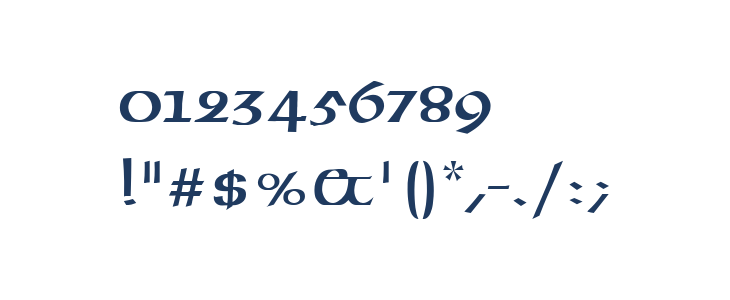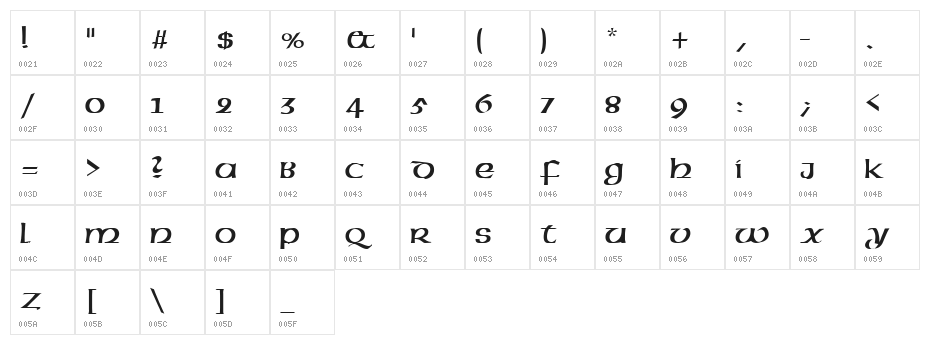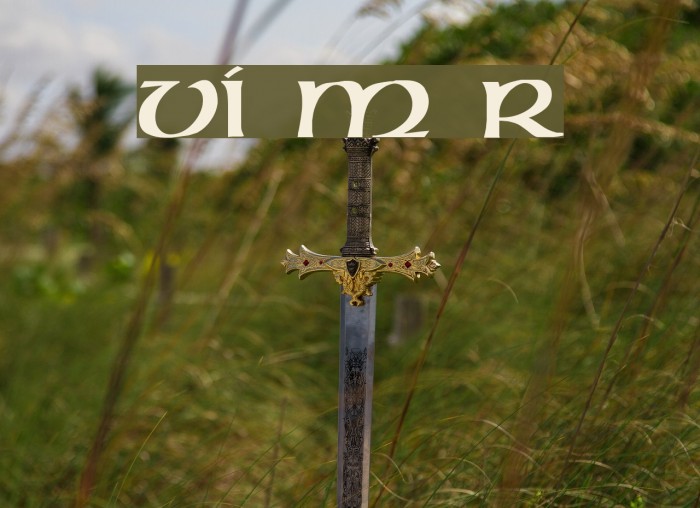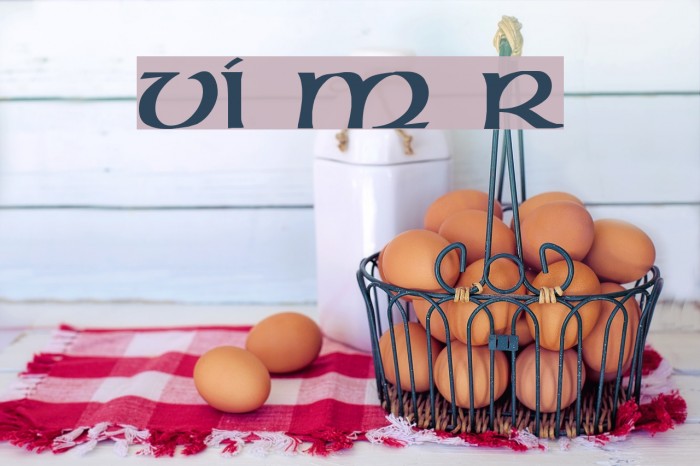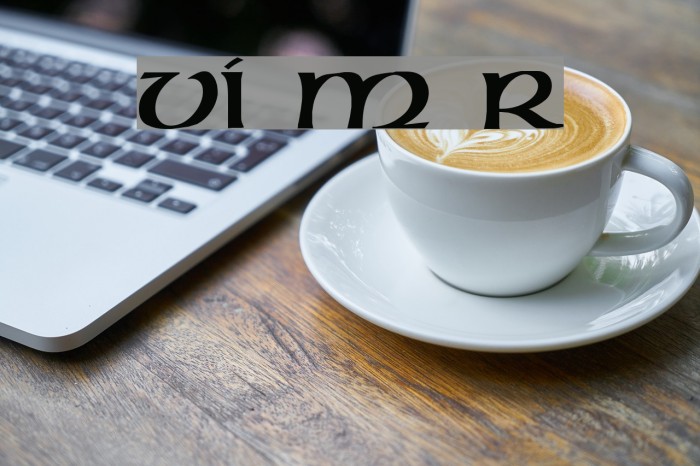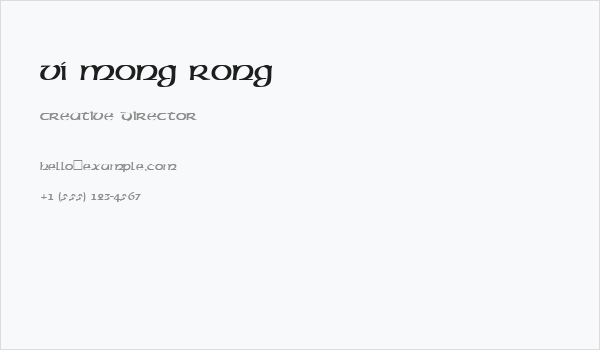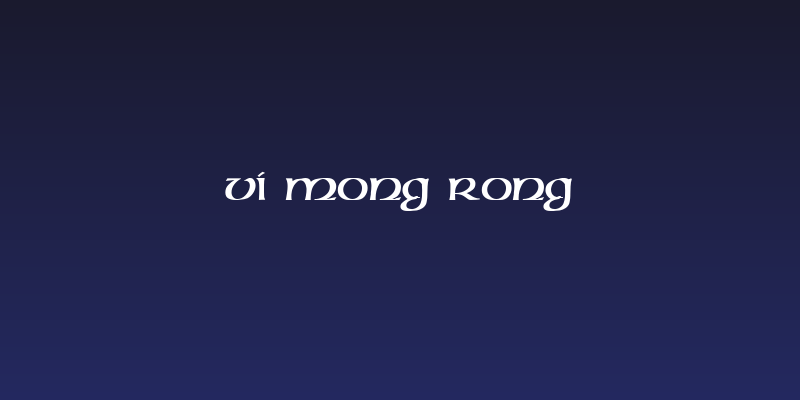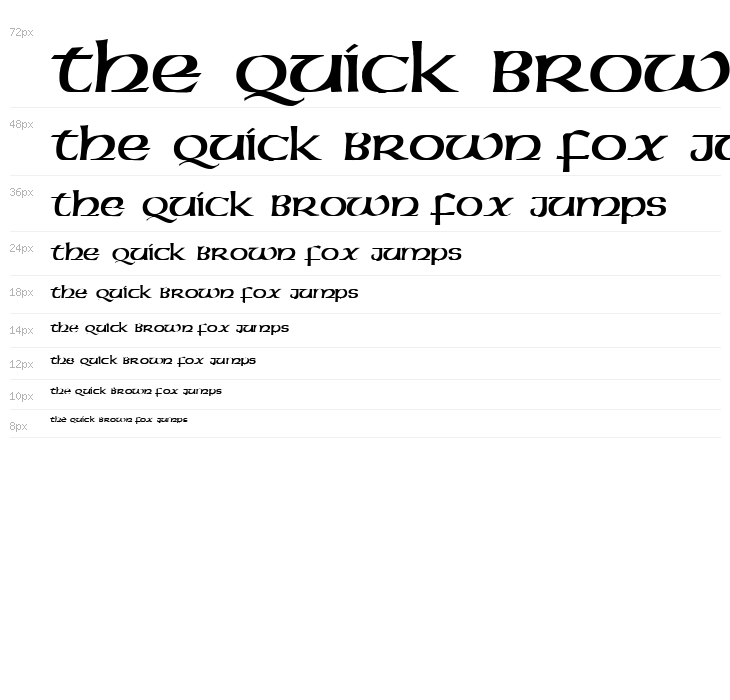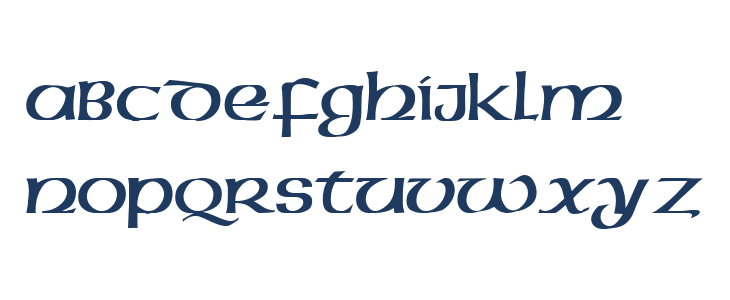
VI Mong Rong Font
VI Mong Rong Description
This font features a distinctive and artistic style with a strong calligraphic influence. The characters exhibit elegant curves and sharp edges, creating a dynamic and flowing appearance. The uppercase letters are bold and commanding, while the lowercase letters maintain a consistent rhythm with a slightly more delicate touch. The numerals are well-integrated, matching the overall aesthetic with their unique forms. Special characters are stylized to complement the letterforms, adding to the font's cohesive look. The overall design is reminiscent of traditional scripts, yet it maintains a modern flair that makes it versatile for various applications.